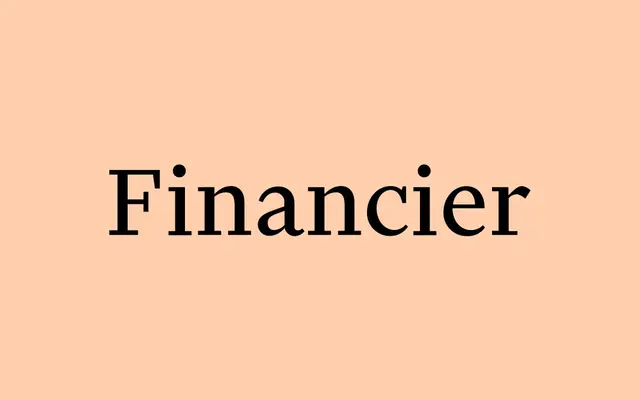
Financier Text
Klim Type Foundry · Kris Sowersby · 2016
A transitional text serif with slab leanings, drawn from Gill's Solus and Joanna for the 2014 Financial Times redesign.
A transitional text serif by Kris Sowersby, the body-copy companion to Financier Display drawn for the 2014 Financial Times redesign. Pragmatic detailing comes from Eric Gill's Solus and Joanna, giving it a slab leaning that holds shape on broadsheets and on narrow mobile screens. Four weights from Regular to Black across eight styles plus variable roman and italic axes carry features, news and longform across the FT's wider editorial system.
Klim classifies it as Modern: Transitional/Slab Serif; the text counterpart drawn for the 2014 Financial Times redesign, with pragmatic detailing taken from Solus and Joanna in the Gill lineage.